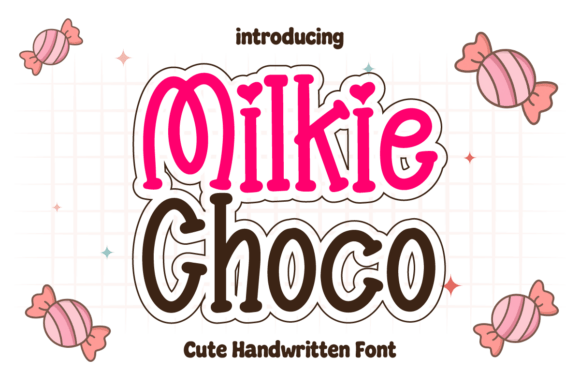
Milkie Choco Font for Sweet Editorial Design
In the world of digital publishing and content creation, typography is rarely just about legibility. It is the primary vehicle for tone, emotion, and brand identity. When designing for lifestyle niches, parenting blogs, or creative education, the standard geometric sans serif or traditional editorial serif can sometimes feel too sterile or corporate. This is where Milkie Choco enters the design workflow. As a handwritten serif font with a distinctively sweet and pastel-inspired personality, this typeface offers editorial designers a unique tool for softening layouts while maintaining structural integrity.
Unlike many script fonts that sacrifice form for excessive flourish, Milkie Choco retains the recognizable skeleton of a serif letterform. This hybrid nature makes it exceptionally versatile for publishers who need the warmth of a handwritten font but require the readability and organization associated with traditional publishing. Whether you are laying out a recipe ebook, designing a newsletter header, or creating social media graphics for a coaching brand, understanding how to leverage this specific aesthetic can elevate your reader engagement significantly.
Defining the Visual Personality of Milkie Choco
To use Milkie Choco effectively in an editorial context, one must first understand its visual DNA. It sits comfortably within the Script Amp category but distinguishes itself through restraint. The strokes mimic the natural variation of a marker or brush pen, yet the terminals and serifs provide anchor points that guide the eye horizontally across the page. This is crucial for display typography in magazines and blogs where you want to capture attention without causing visual fatigue.
The "cute" factor here is sophisticated rather than juvenile. For content creators targeting adult audiences in the wellness, crafting, or family sectors, this distinction matters. A font that looks too childish can alienate readers seeking professional advice or premium products. Milkie Choco strikes a balance by offering playfulness through its rounded forms and organic rhythm, while the serif structure signals credibility and intention. It feels like a personal note from a trusted friend rather than a generic clip-art graphic.
Strategic Applications in Publication Layouts
When integrating this creative font into long-form content or digital products, specificity is key. It should not be treated as a universal solution but as a strategic accent. Here are practical applications where Milkie Choco performs best:
Mastering Font Pairing for Readability
A common pitfall in editorial design is pairing two display fonts that compete for attention. Because Milkie Choco has such a strong character, it demands a supportive partner. For body copy, avoid other scripts or highly decorative serifs. Instead, opt for a clean, neutral sans serif font or a classic, high-x-height serif. The contrast between the organic, hand-drawn quality of Milkie Choco and the mechanical precision of a text face creates a dynamic visual hierarchy that aids navigation.
For example, if you are designing a wedding planning guide, pair Milkie Choco headings with a refined transitional serif for the instructional text. This combination suggests both romance and reliability. Conversely, for a modern parenting blog, pairing it with a geometric sans serif can create a fresh, contemporary look that appeals to millennial and Gen Z parents. Always test your pairings at actual reading sizes; what looks balanced on a 27-inch monitor may feel cramped on a mobile device or in a printed PDF.
Technical Considerations for Digital and Print
Readability extends beyond aesthetics. When using Milkie Choco in web design or digital publications, consider line height and tracking. Handwritten fonts often have irregular baselines and ascenders. Increasing line spacing slightly more than you would for standard text prevents characters from tangling visually. In CSS or design software, adding modest letter-spacing can also improve legibility in all-caps settings, though this typeface generally shines brightest in title case or sentence case.
For those creating sublimation designs or apparel, check the included alternates and ligatures. These features allow you to customize connections between letters, preventing repetitive patterns that can make digital typography look robotic. Utilizing OpenType features transforms a static font file into a fluid design asset that mimics genuine handwriting. Additionally, verify multilingual support if your publication serves international audiences, as missing glyphs can disrupt the immersive experience of a beautifully designed layout.